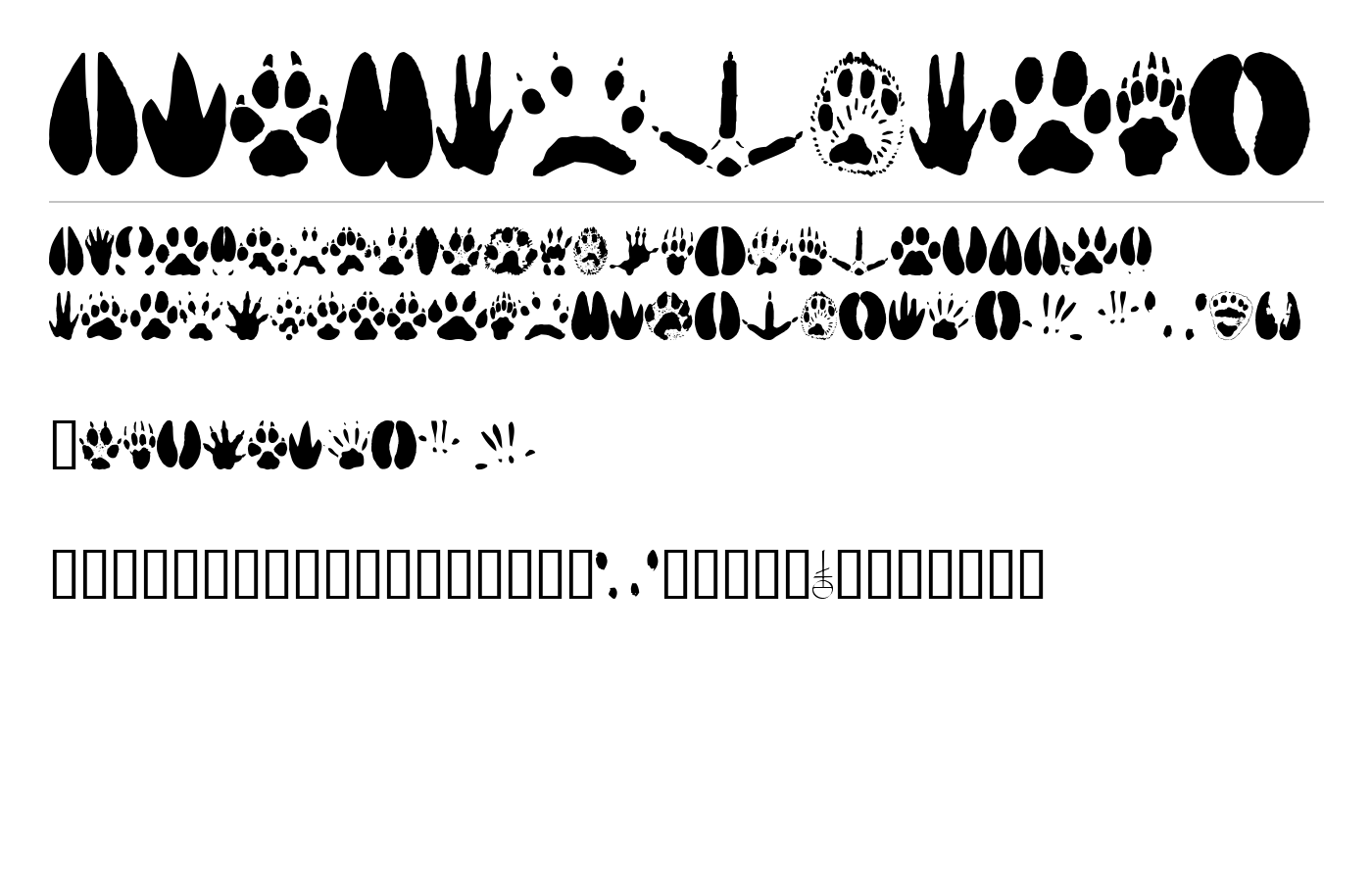
AnimalTracks Font is a playful and creative symbol font featuring a variety of animal footprints in a bold, solid black style. Perfect for adding a rustic, nature-inspired touch, this font works well in educational materials, outdoor adventure branding, and kids’ designs where a fun, thematic impression is desired. Its unique paw and hoof shapes bring a lively, approachable vibe that captures attention and sparks imagination.
AnimalTracks Font
About AnimalTracks Font